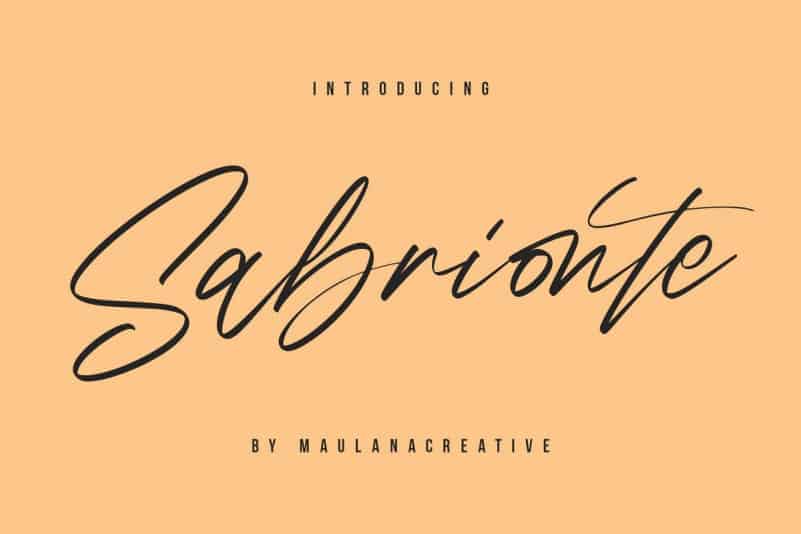
Sabrionte Script Font
Hello Font Lovers! Introducing Sabrionte Script Font. Get stylish with Distinct Style, a fashionable and contemporary pair of signature & sans fonts designed to perfectly compliment one another. Give your designs an authentic brush handcrafted feel. Sabrionte is perfectly suited to signature, stationery, logo, typography quotes, magazine or book cover, website header, flyer, clothing, branding, packaging design and more.